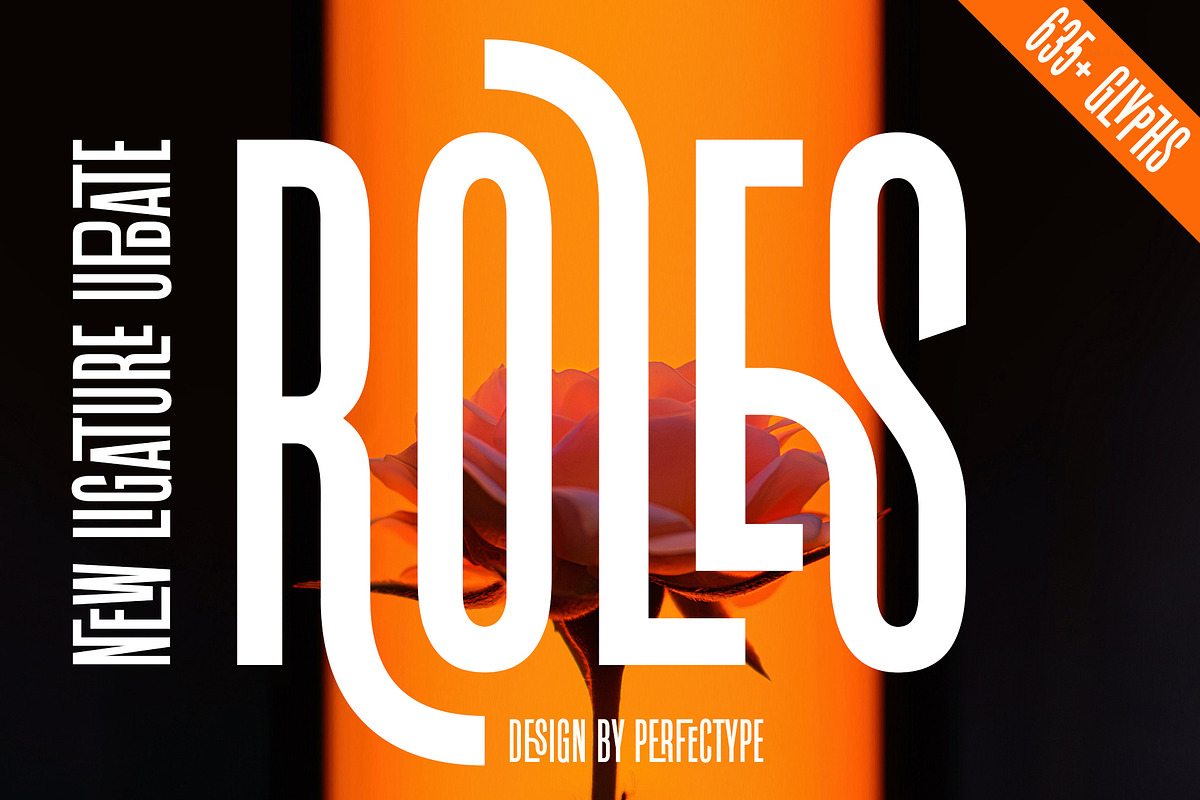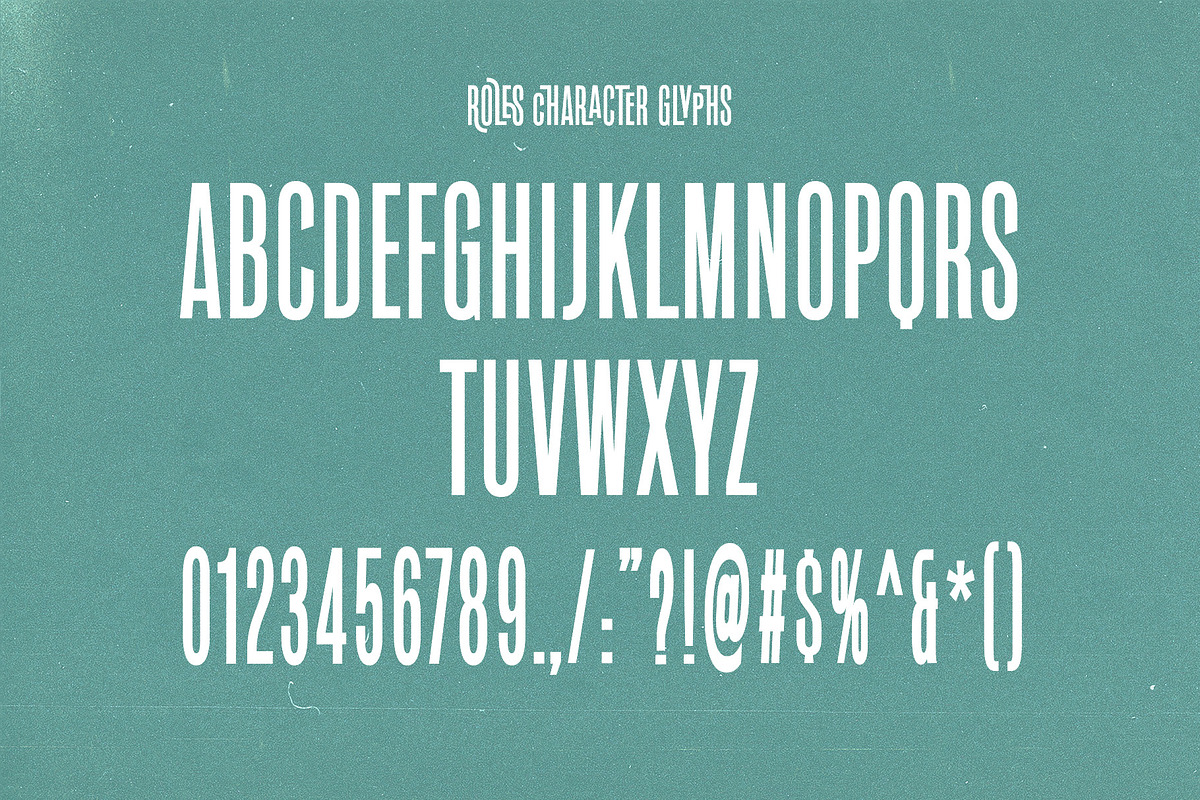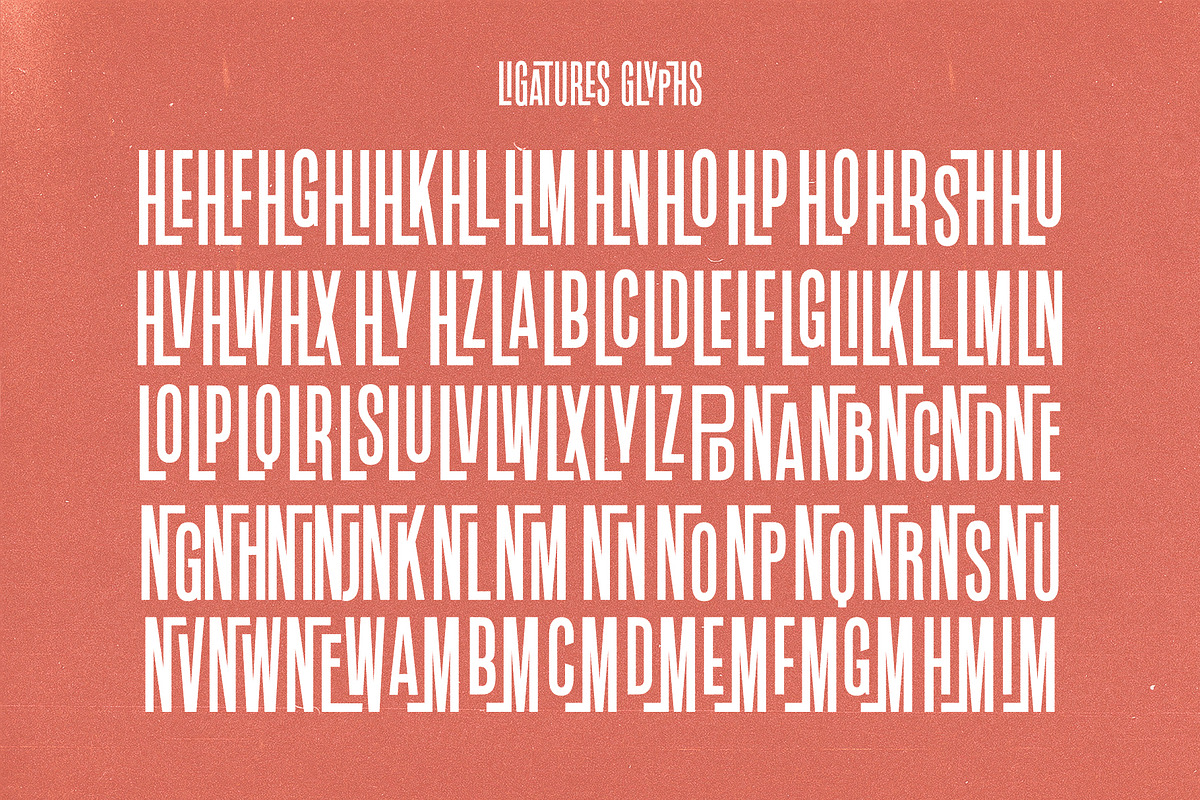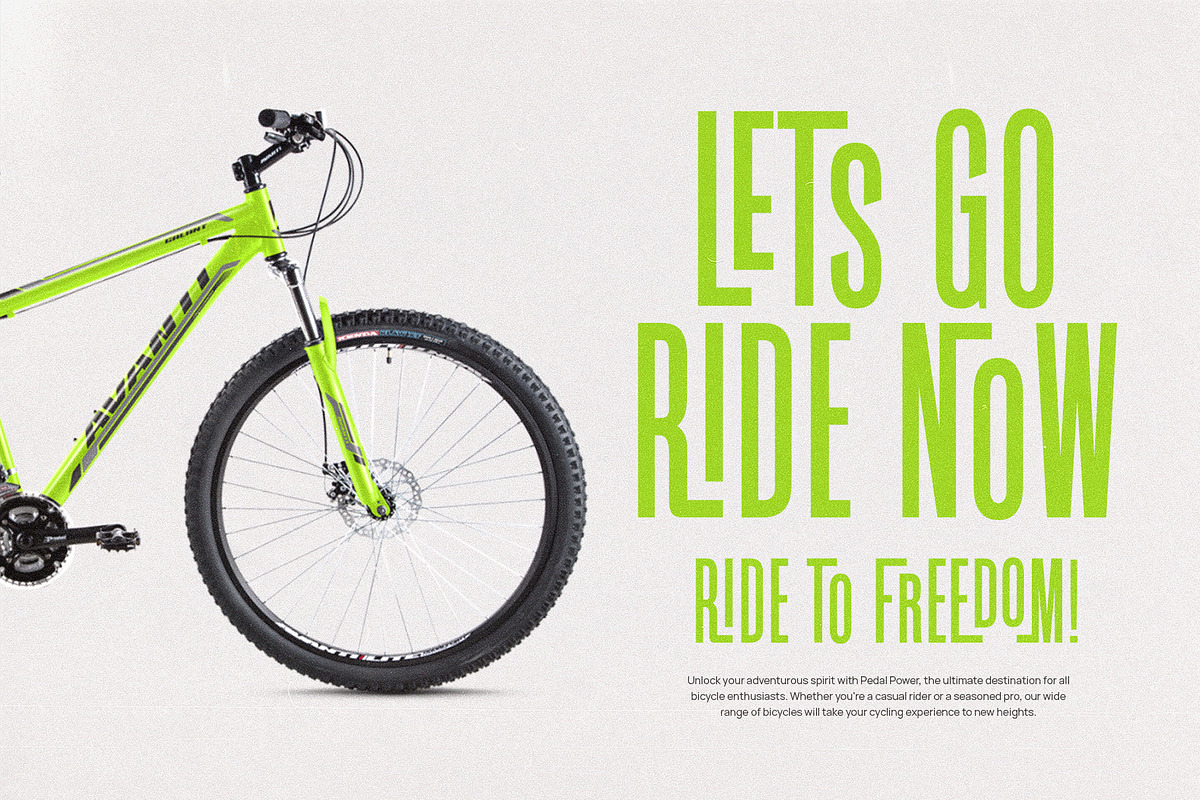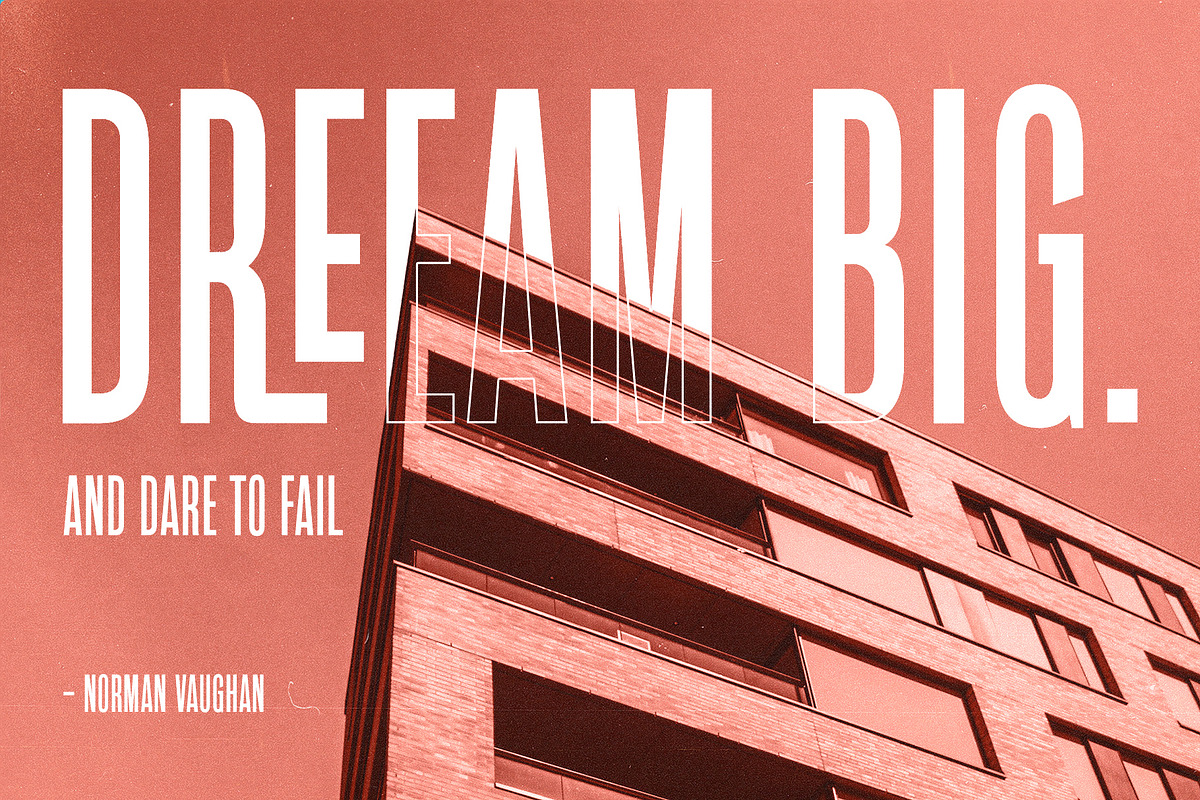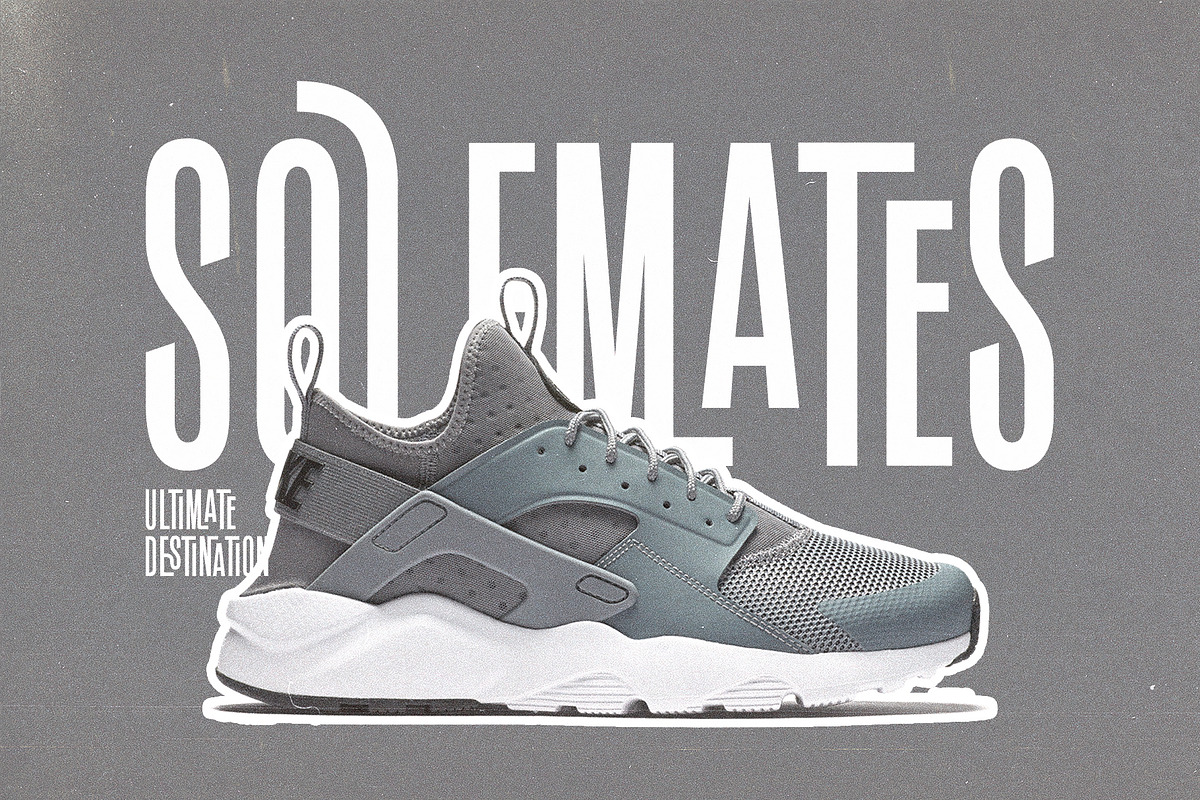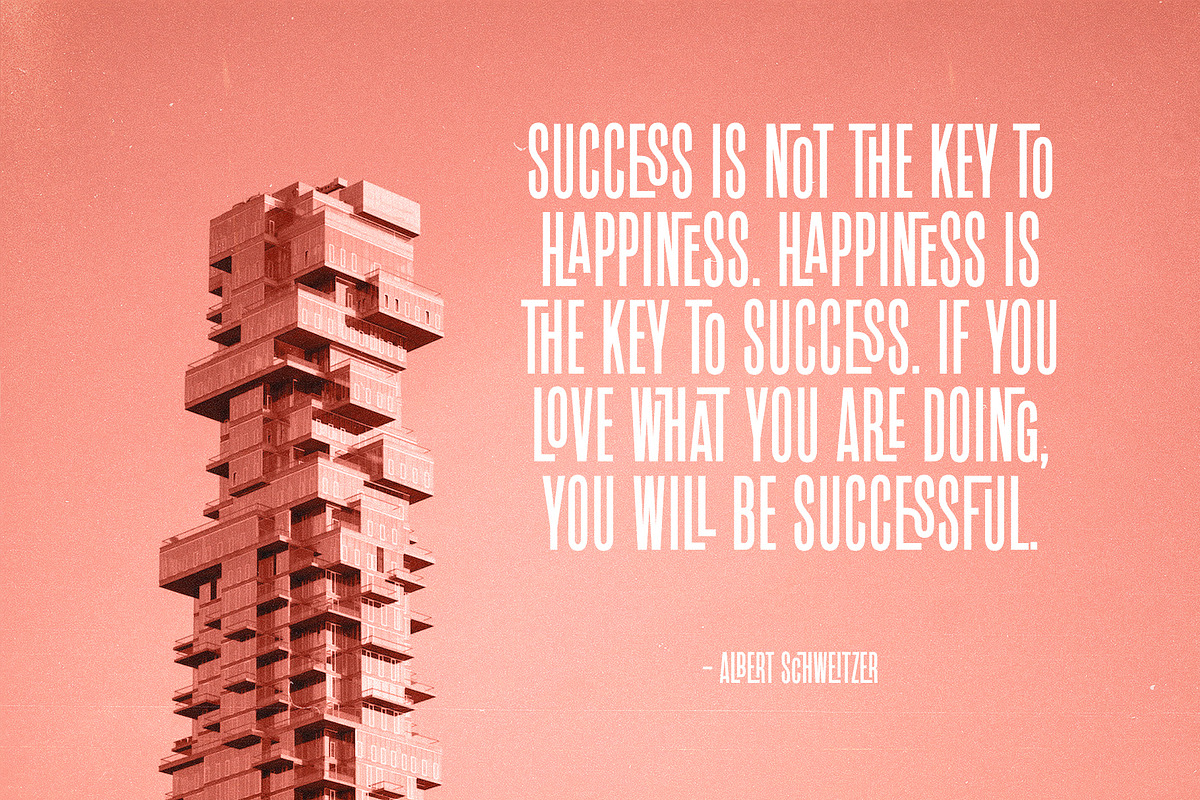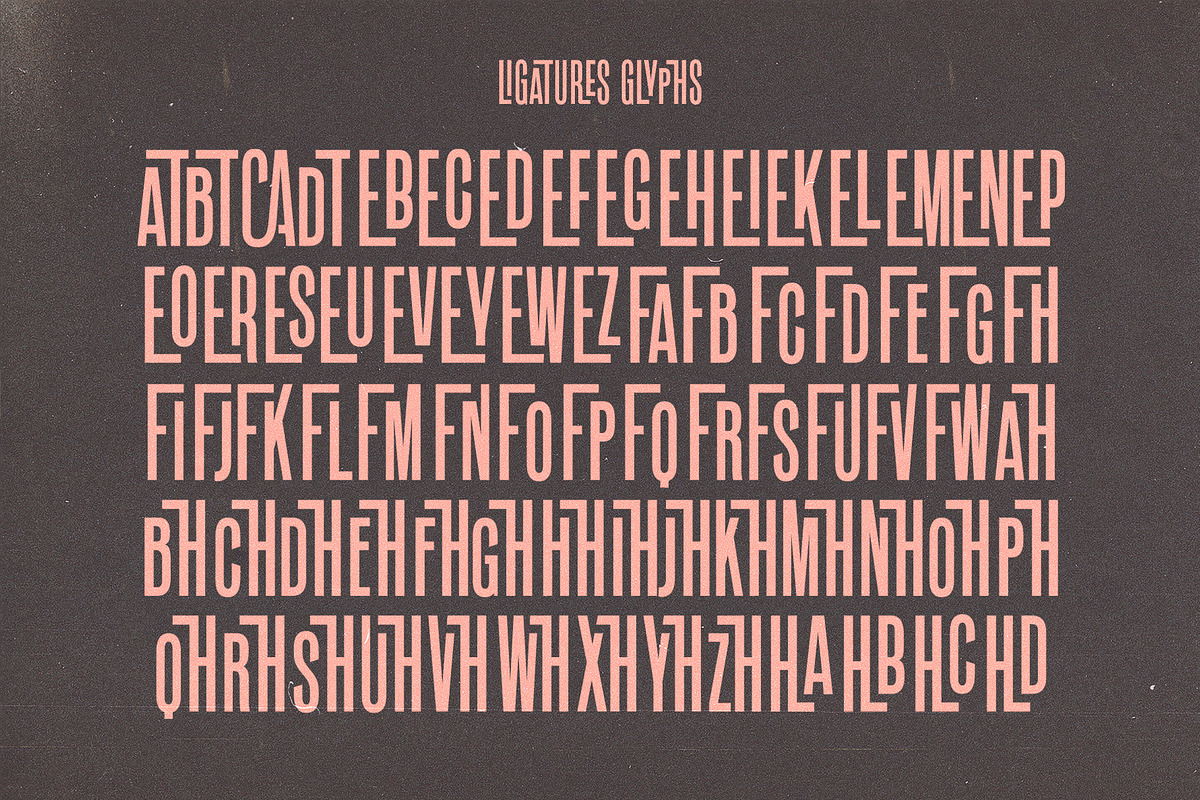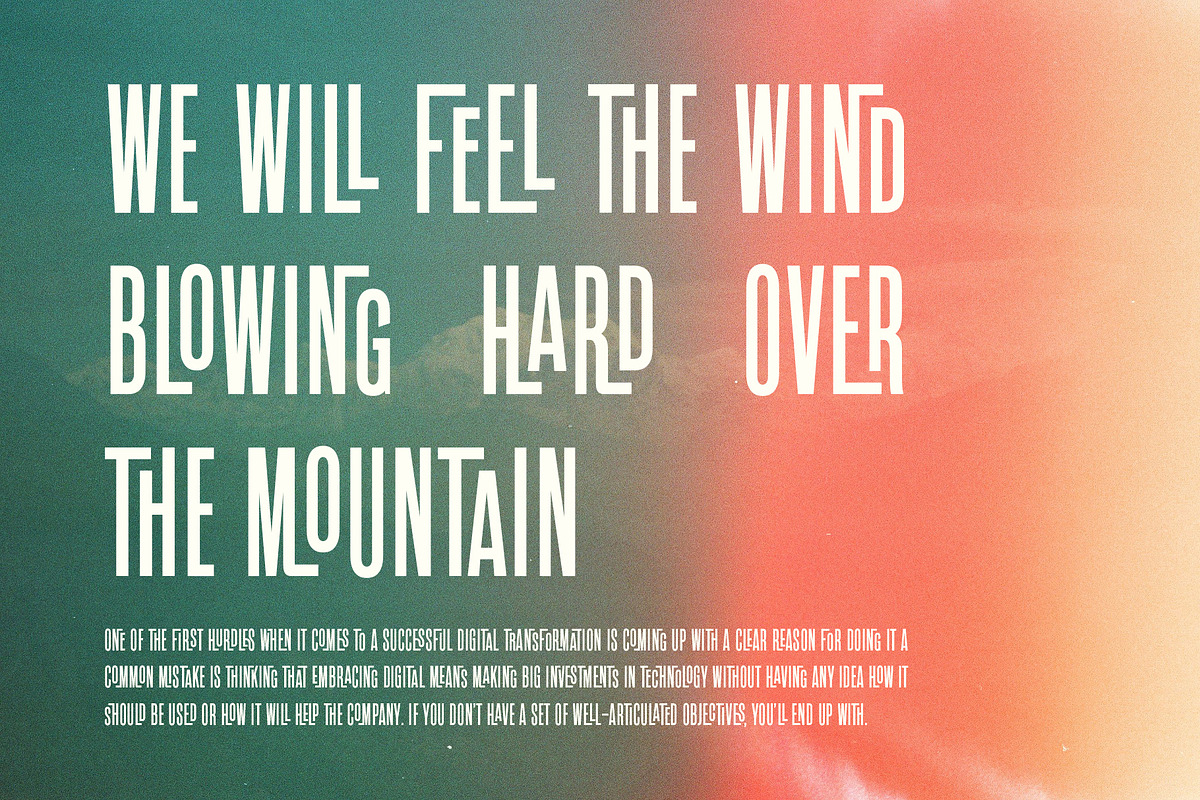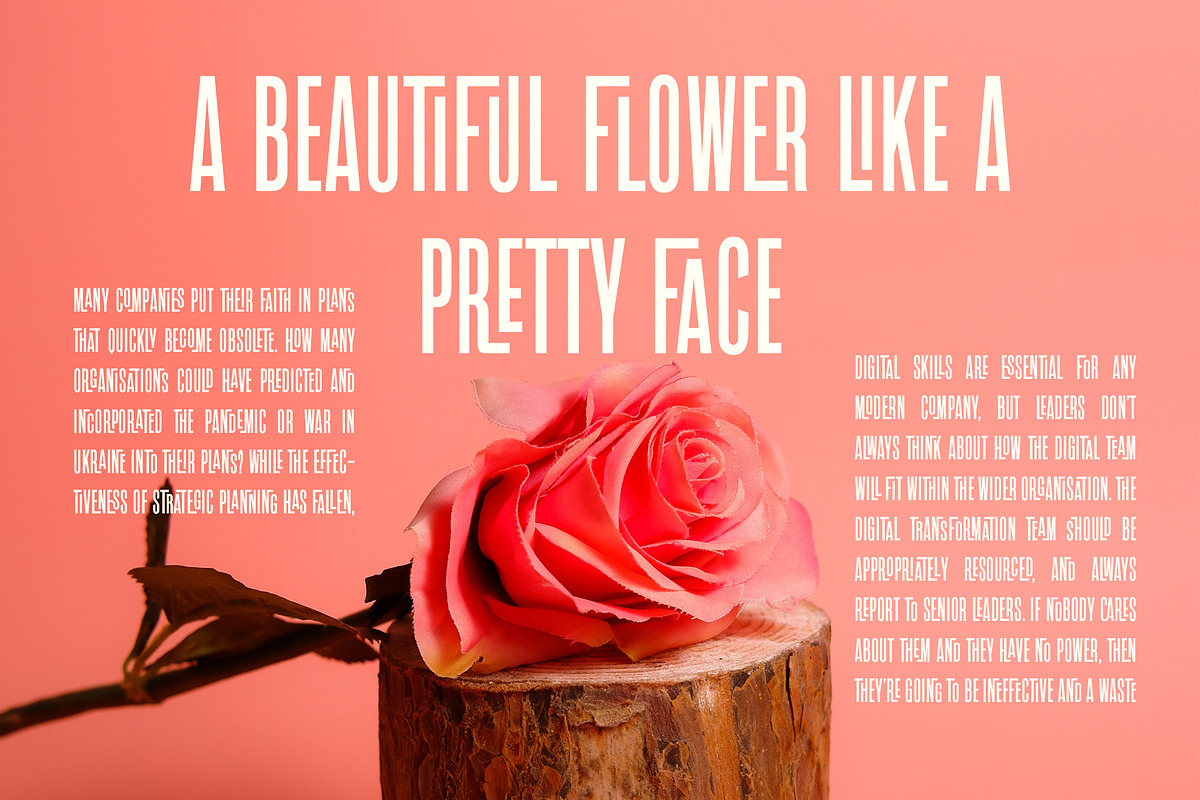
Roles Update!! Ligature Sans Serif
Roles is a modern and minimalist font that has many binding features. This font has more than 635 total glyphs consisting of various ligature features in sequence from all the letters which will certainly beautify and make your design look good and great. This font is made with a balanced shape with a high level of legibility, so it looks neat when used to write/create various designs and purposes. This font has been downloaded and used by more than 20,000 creative market customers at the Free Good event, and received a positive response and 5 stars from its users. This font is suitable for your various designs such as branding projects, logos, social media posts, advertisements, product packaging, product designs, labels, photography, watermarks, invitations, stationery, wedding designs and any projects, created at a high level legibility.
- 635+ Total Glyphs
- Lots of Ligatures